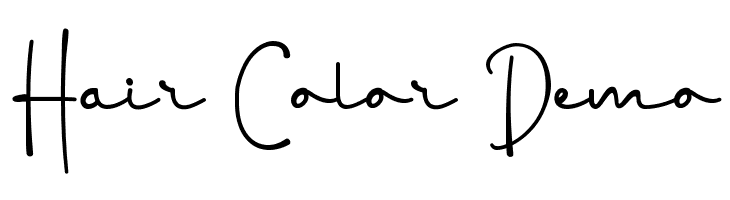
An elegant and flowing script font with ornate letterforms.
A bold, modern font with rounded strokes and a playful aesthetic.
A bold, distressed font with a grunge-like, hand-drawn appearance.
A playful and decorative font with high contrast and whimsical design.
A flowing, cursive font with elegant, connected strokes.
A bold, geometric font with angular shapes and clean lines.
A decorative font with cartoon faces representing each character.
A playful, decorative font with comb-like horizontal lines extending from each character.
A bold, italic font with dynamic horizontal lines for a sense of movement.
A bold, chaotic display font with a punk rock aesthetic and distressed look.
A whimsical, hand-drawn font with thin, elongated strokes and a playful style.
A bold, brush-style font with dynamic, hand-drawn strokes.
A whimsical, playful font with cloud-like textures and bow accents.
A bold, expressive brush-style font with dynamic, handcrafted strokes.
Ornamental font featuring diverse hairstyle silhouettes.
A decorative font with a textured, intertwined ribbon-like design.
A modern blackletter font with sharp, angular lines and intricate detailing.
A delicate, hairline font with a modern and artistic style.
A playful, hand-drawn font with tall, narrow characters and a whimsical style.
A bold, decorative font with thorn-like, angular designs.
A whimsical, decorative font with curly, looping strokes and artistic embellishments.
A playful, hand-drawn font with dynamic strokes and whimsical charm.
A playful, hand-drawn font with dynamic strokes and a whimsical style.
A bold, playful handwritten font with a brush-like texture and lively appearance.
A bold, textured font with a playful, hairy appearance.
A bold, jagged font with a hairy, chaotic style.
A modern, geometric font with rounded shapes and clean lines.